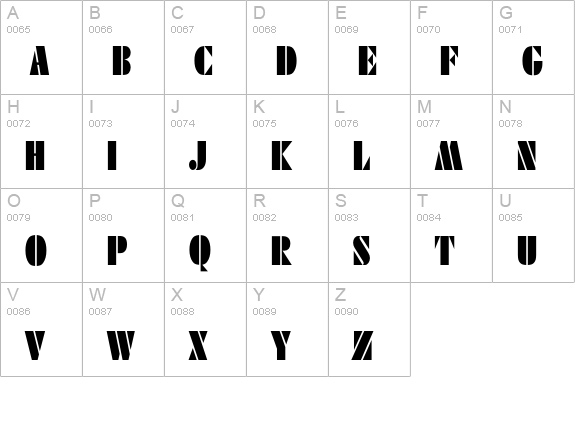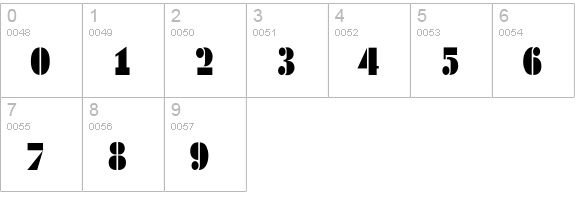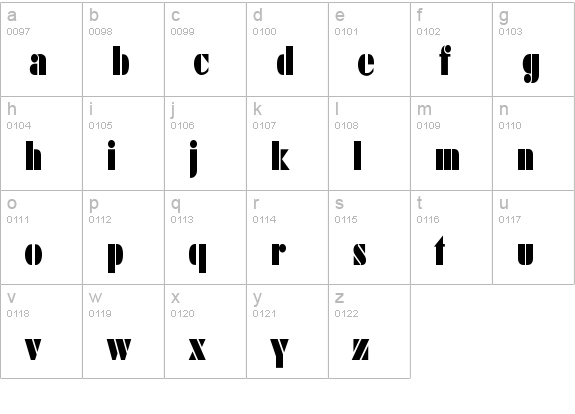
Dekoblack-Condensed is a distinctive, condensed-width variant in the Dekoblack typeface family \xE2\x80\x94 well suited to design and typography projects.
Dekoblack-Condensed font is a modern and stylish typeface that exudes sophistication and elegance. Its sleek and streamlined design makes it perfect for a wide range of design projects, from branding and advertising to web design and print materials. With its bold and eye-catching appearance, Dekoblack-Condensed font commands attention and adds a touch of contemporary flair to any creative project. What sets Dekoblack-Condensed font apart is not just its striking visual appeal, but also the fact that it is available for free download at FontsMarket.com. This means that you can easily access this high-quality font and use it in your projects without any cost. Whether you're a professional designer looking for a versatile typeface or a hobbyist looking to add a touch of sophistication to your creations, Dekoblack-Condensed font is the perfect choice. Download it today and elevate your designs with this stunning and free font.